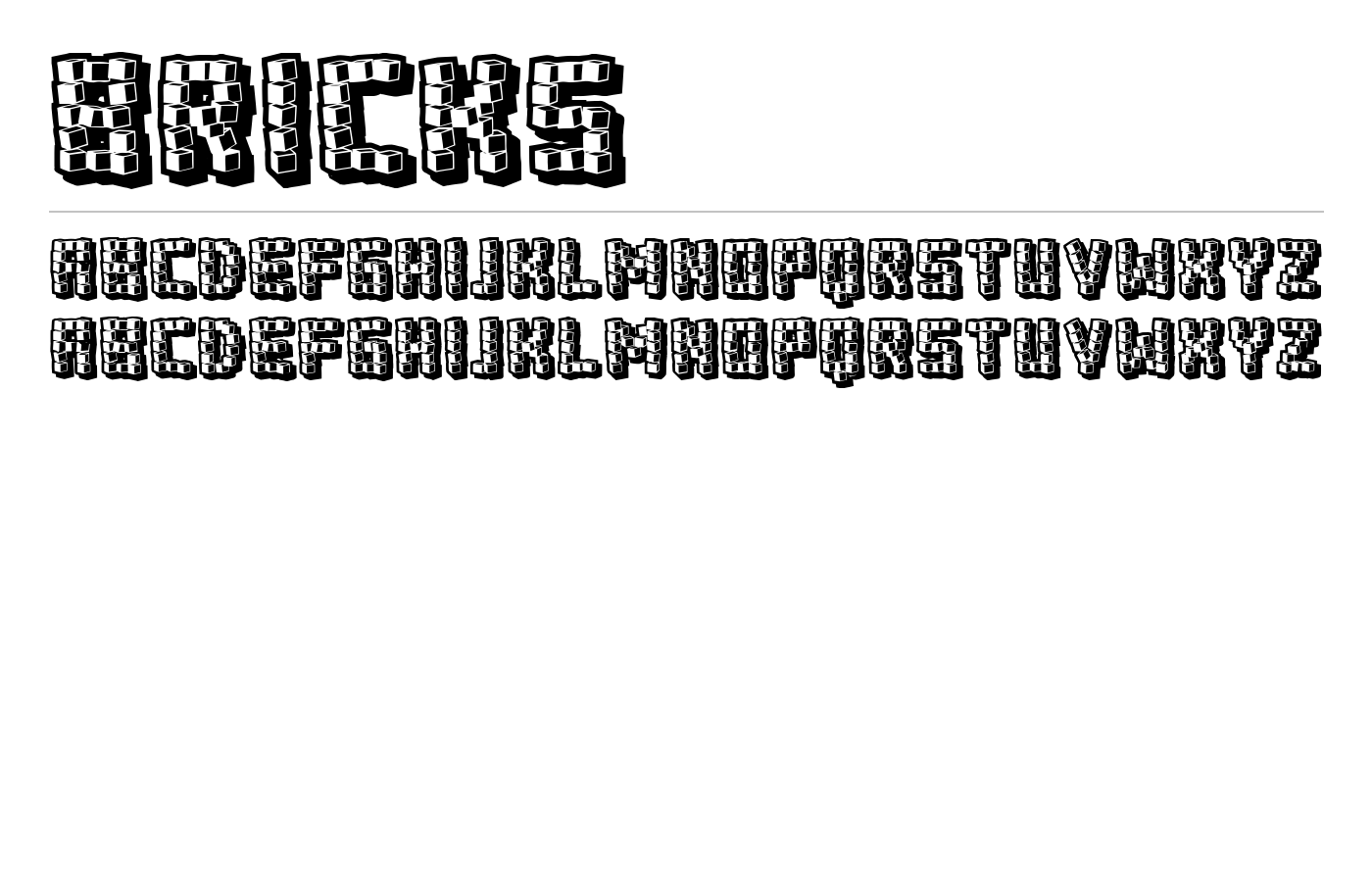
Bricks Font is a bold, decorative sans serif typeface designed to resemble three-dimensional wall bricks, with a playful and chunky style. Its heavy weight and unique brick pattern give it a strong, eye-catching personality, perfect for headlines, posters, and branding that aim to convey creativity and a tactile, handcrafted vibe. This font works best in display settings where a distinctive, fun, and structural look is desired.
Bricks Font
About Bricks Font
| Font family | Bricks Font |